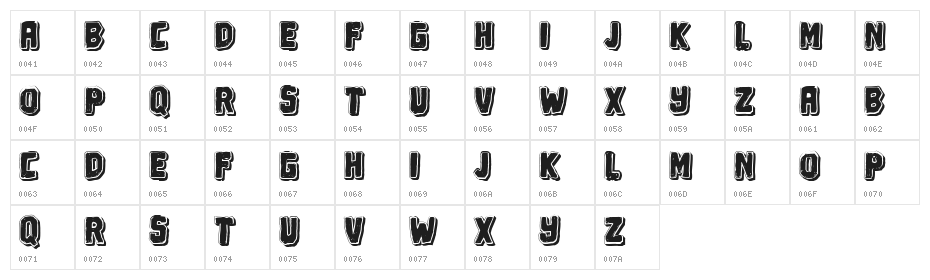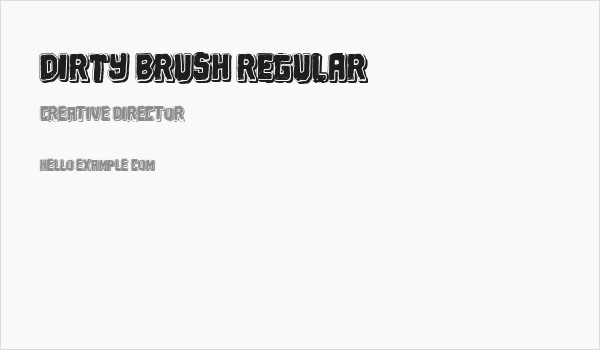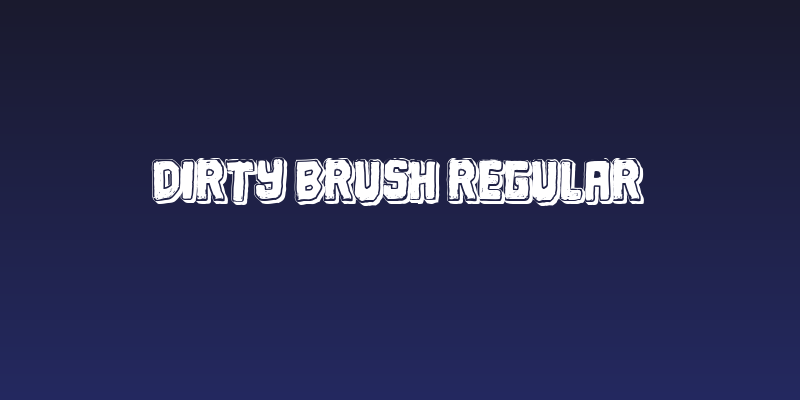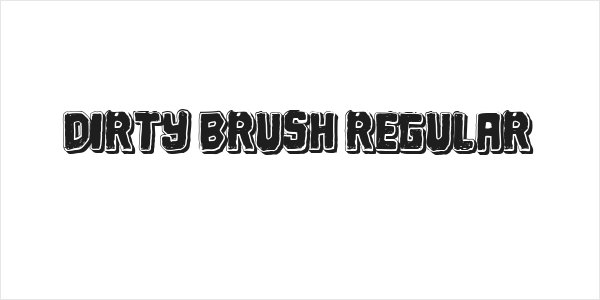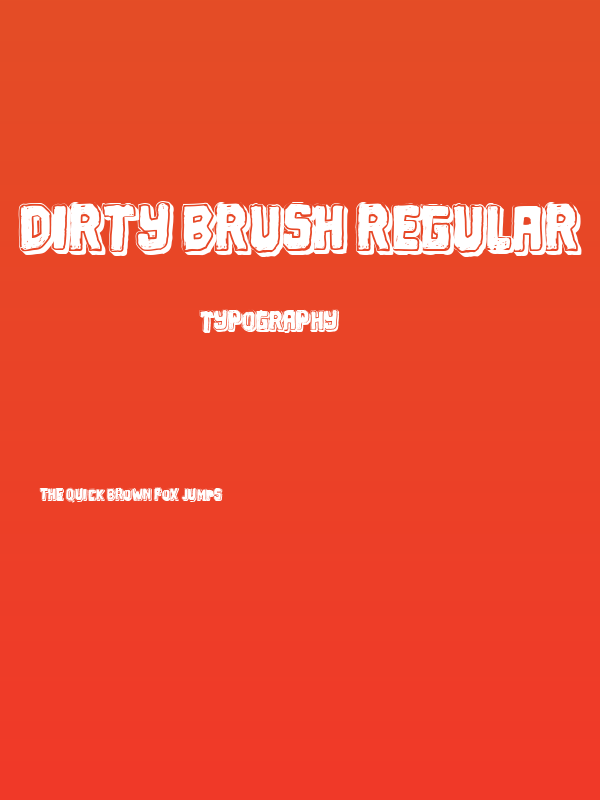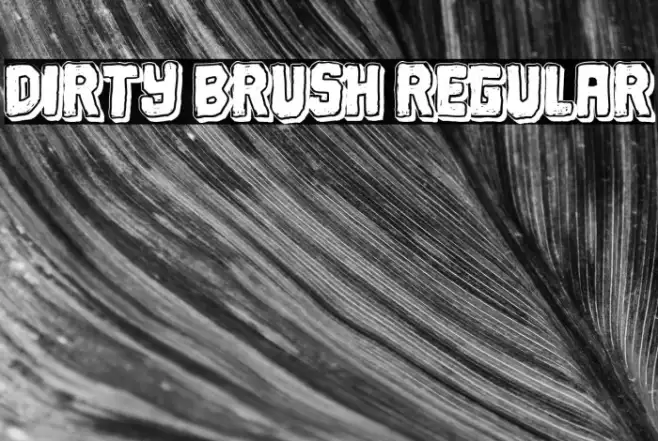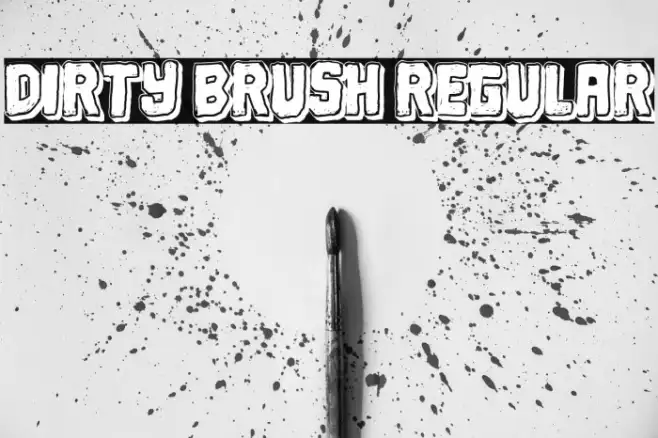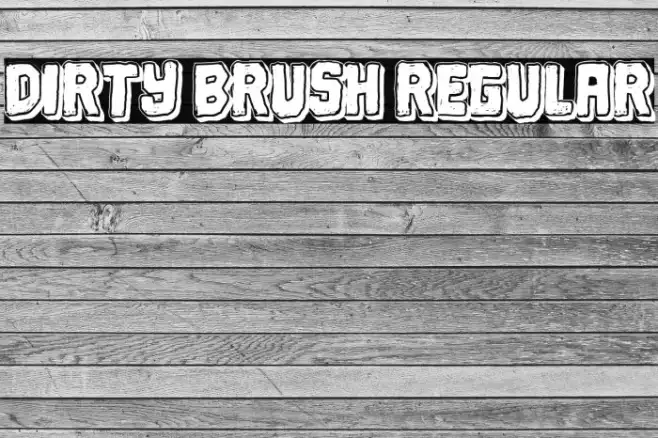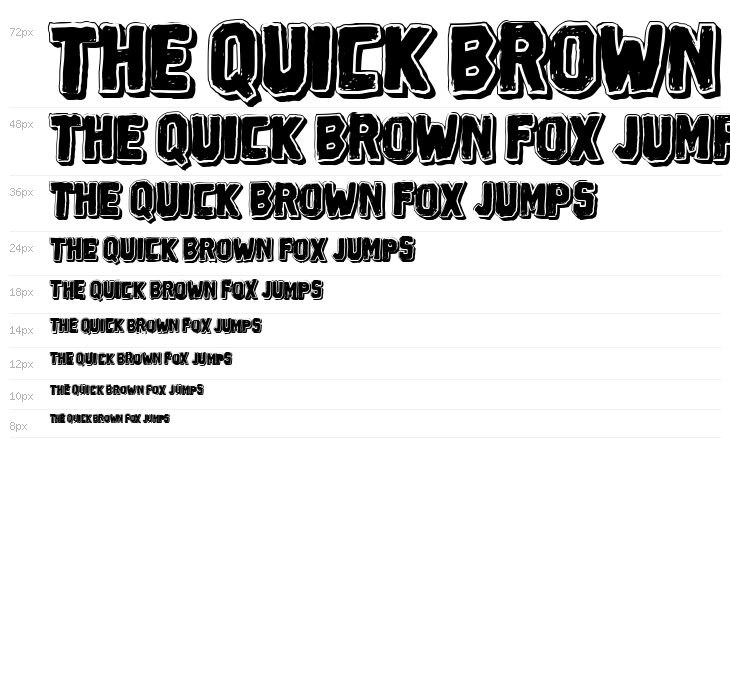
Dirty Brush Regular Font
Dirty Brush Regular Description
This font features a bold, rugged style with a hand-drawn appearance, characterized by its rough edges and textured look. The letters are thick and substantial, giving a strong visual impact. The design mimics the effect of a brush or marker, with uneven strokes and a slightly distressed finish that adds a sense of dynamism and energy. The uppercase letters are uniform in height, while the overall style suggests a playful yet assertive tone, making it suitable for attention-grabbing headlines or creative projects.
| Proposed Projects | Ideal for posters, logos, branding, and any project requiring a bold, artistic touch. |